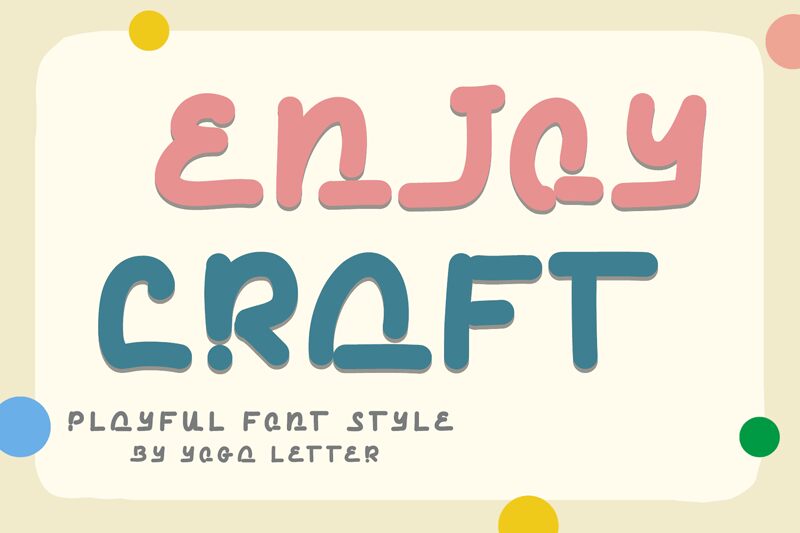
Enjoy Craft font was designed by Yoga Letter as a free font with personal use application. It is a playful font style inspired by script design but keeping strong geometric and rounded roots. The font is informal, friendly, and whimsical, with fun clean strokes. It is perfect for contemporary applications in children's products and creative branding.
The friendly flair in this font makes it perfect for websites, online blogs, and printed projects. Try it in the design of t-shirts, cups, lunchboxes, children’s products, packaging, and album covers. This can also be used in flyers, business cards, and posters with light-hearted undertones.